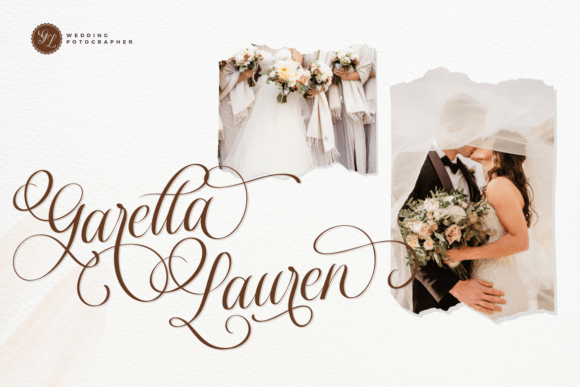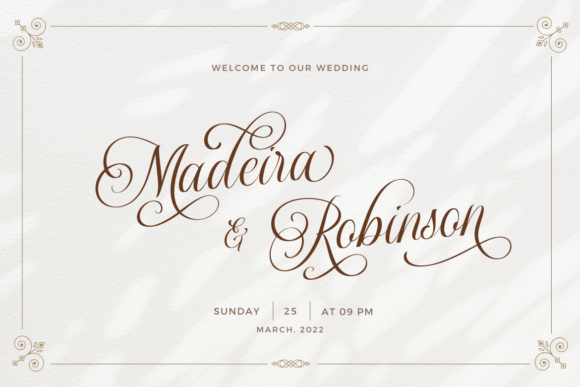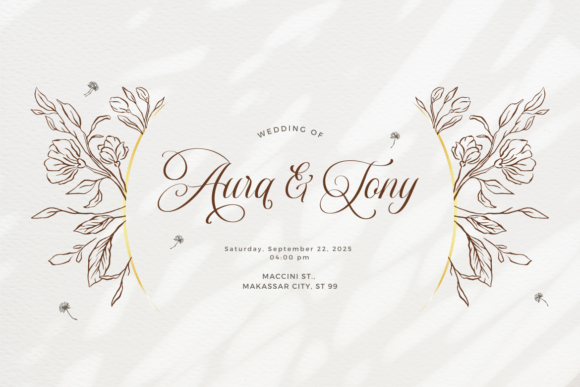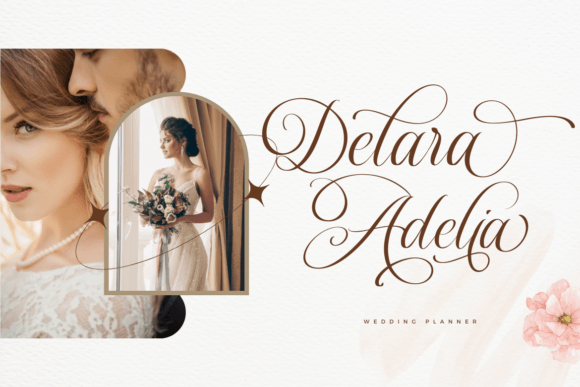
“Dellanor Script” is a romantic wedding font with luxury, stylish, and elegant characteristics. Its ornate and decorative style makes it a great choice for wedding invitation design, event signs, and other design projects that require a touch of sophistication and romance.